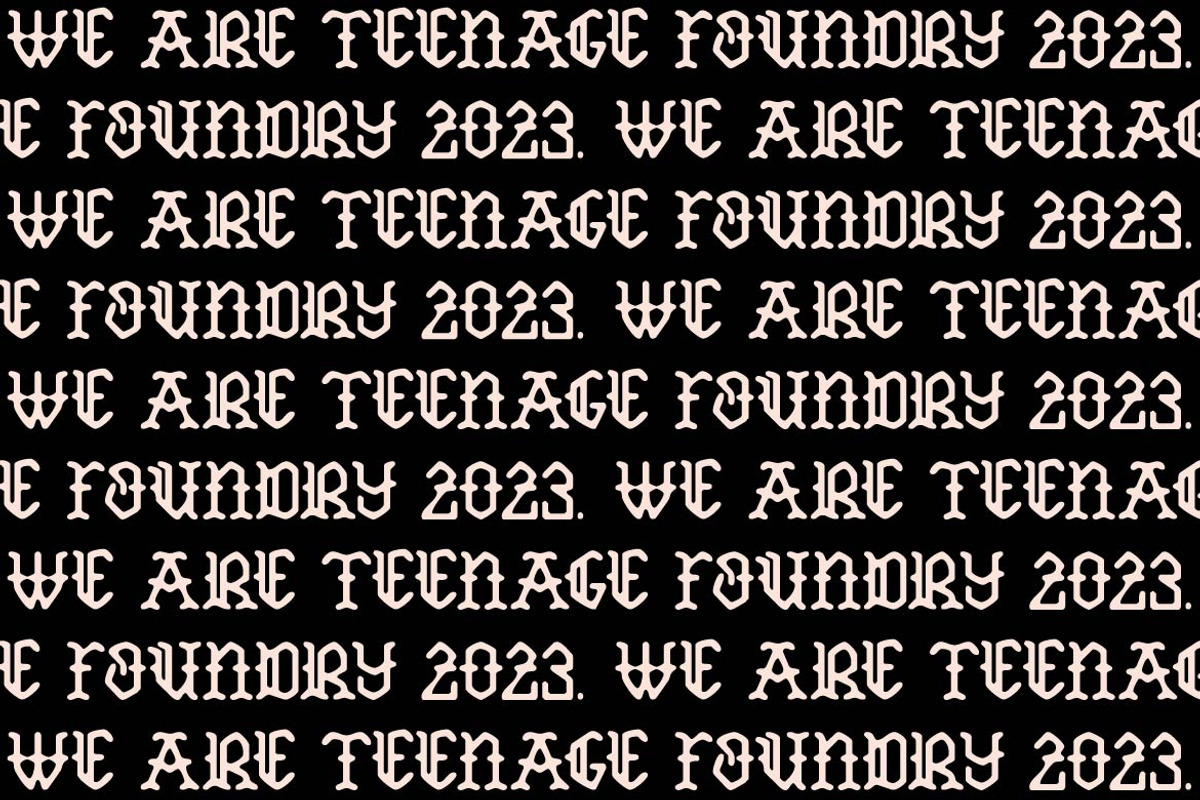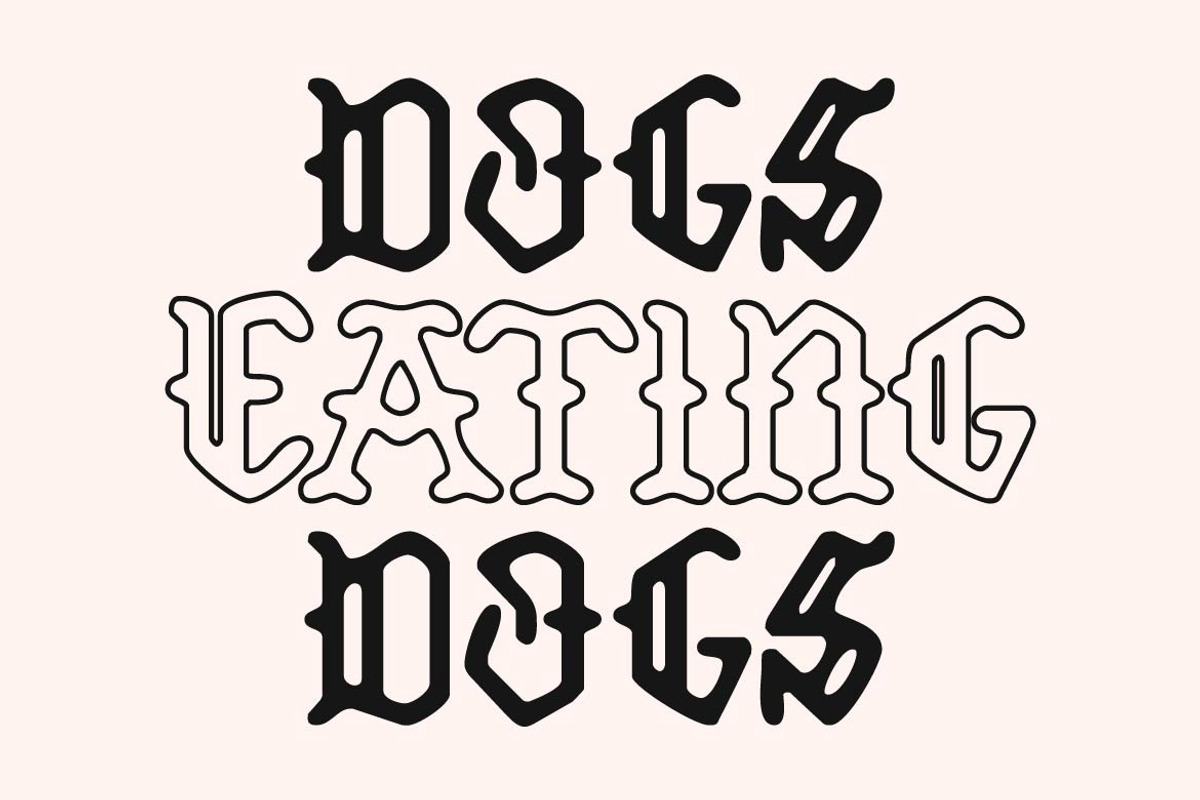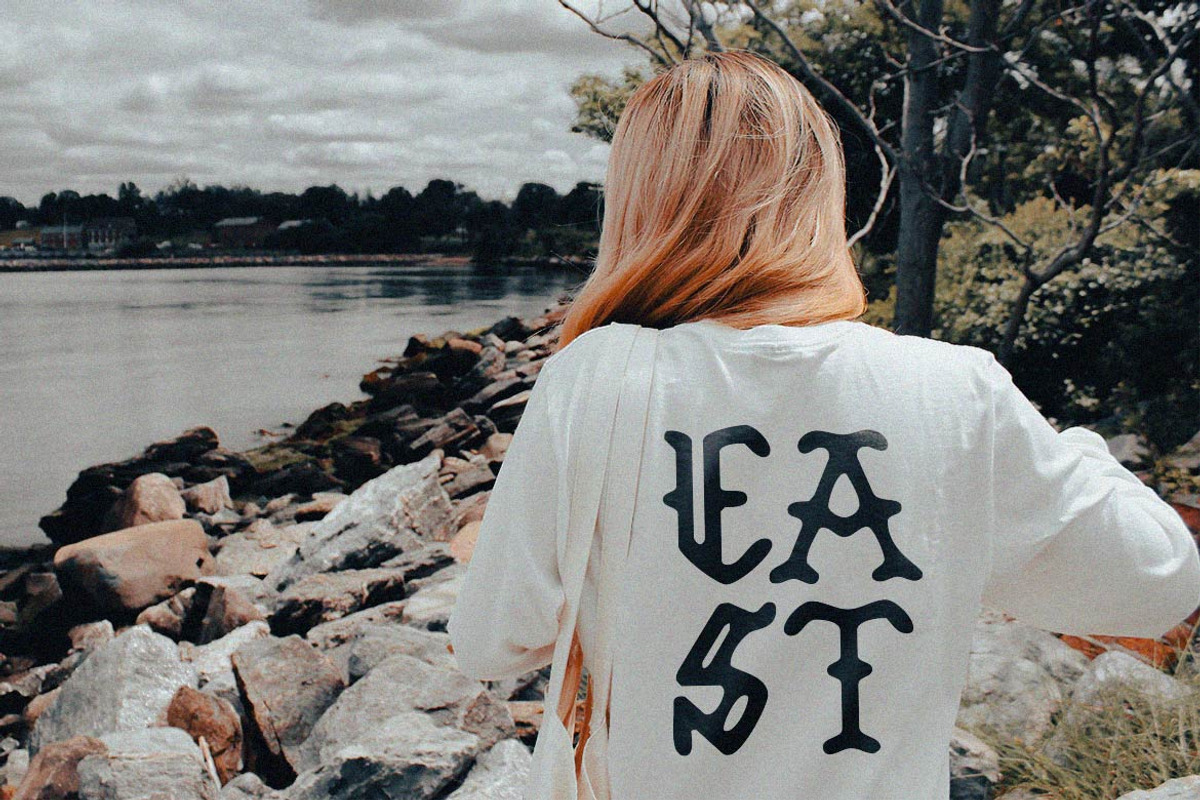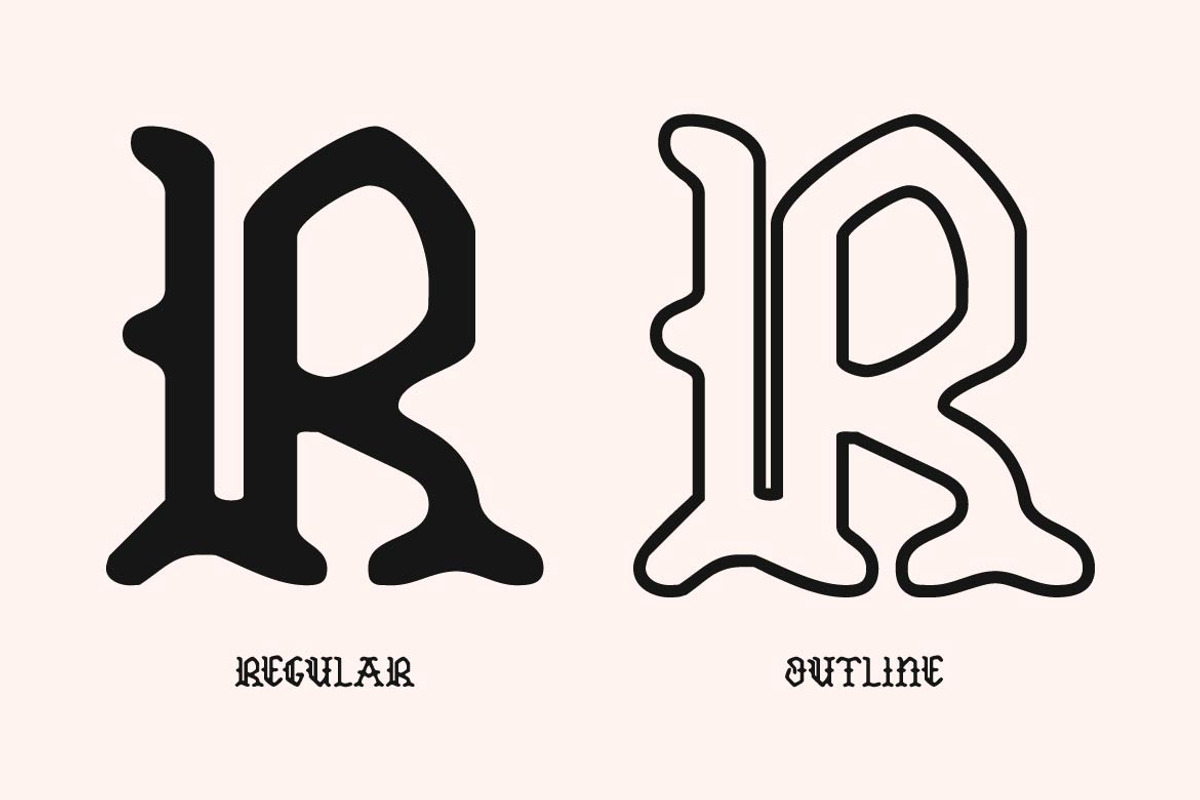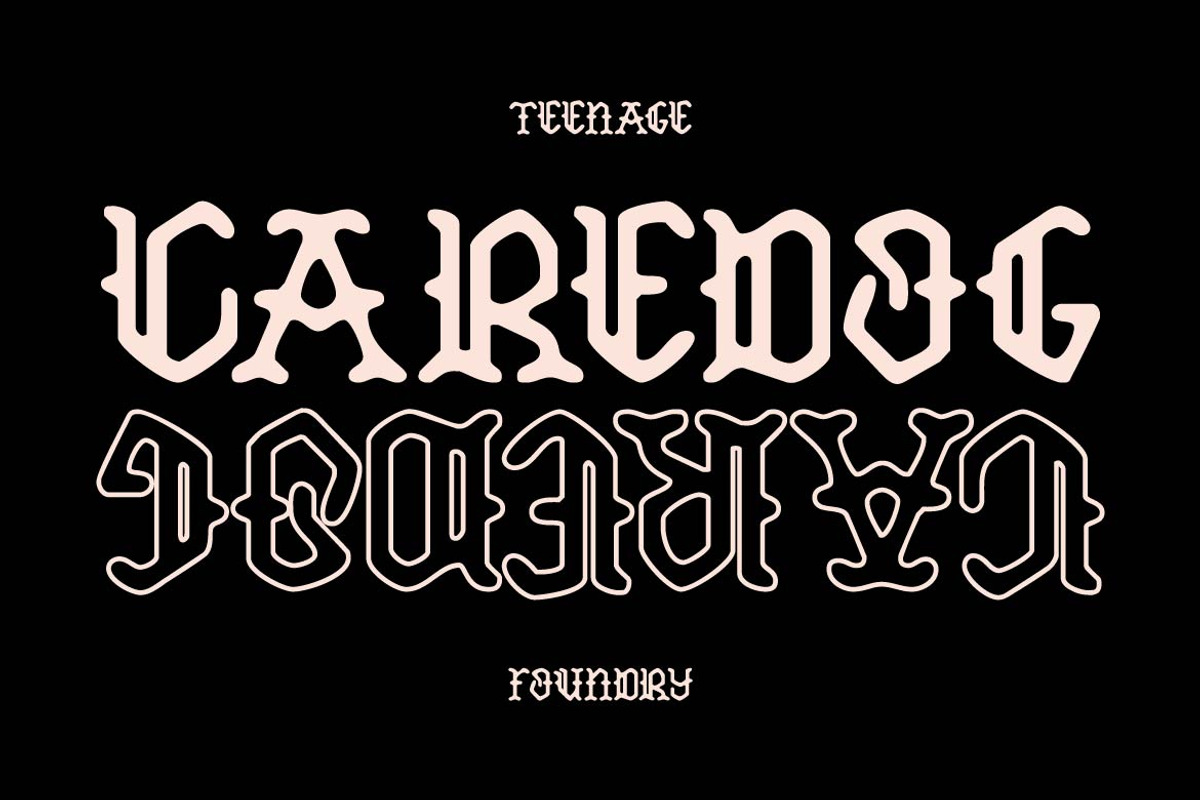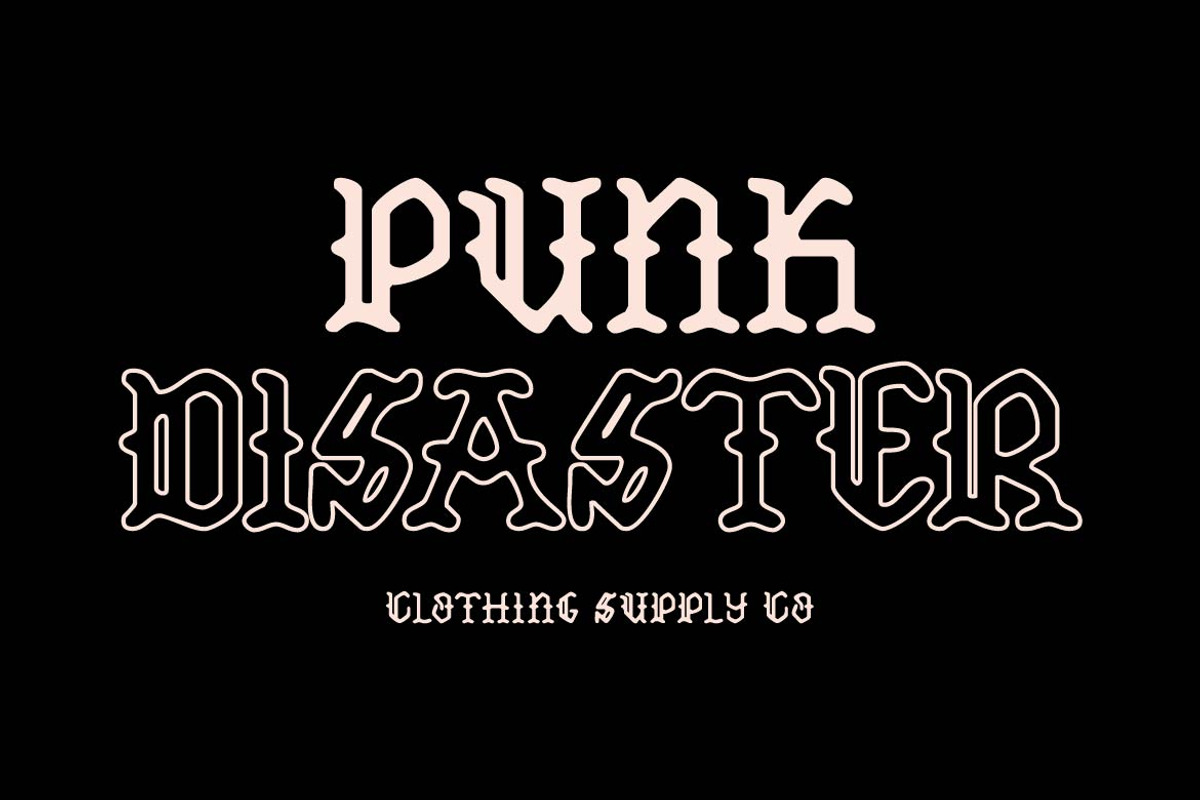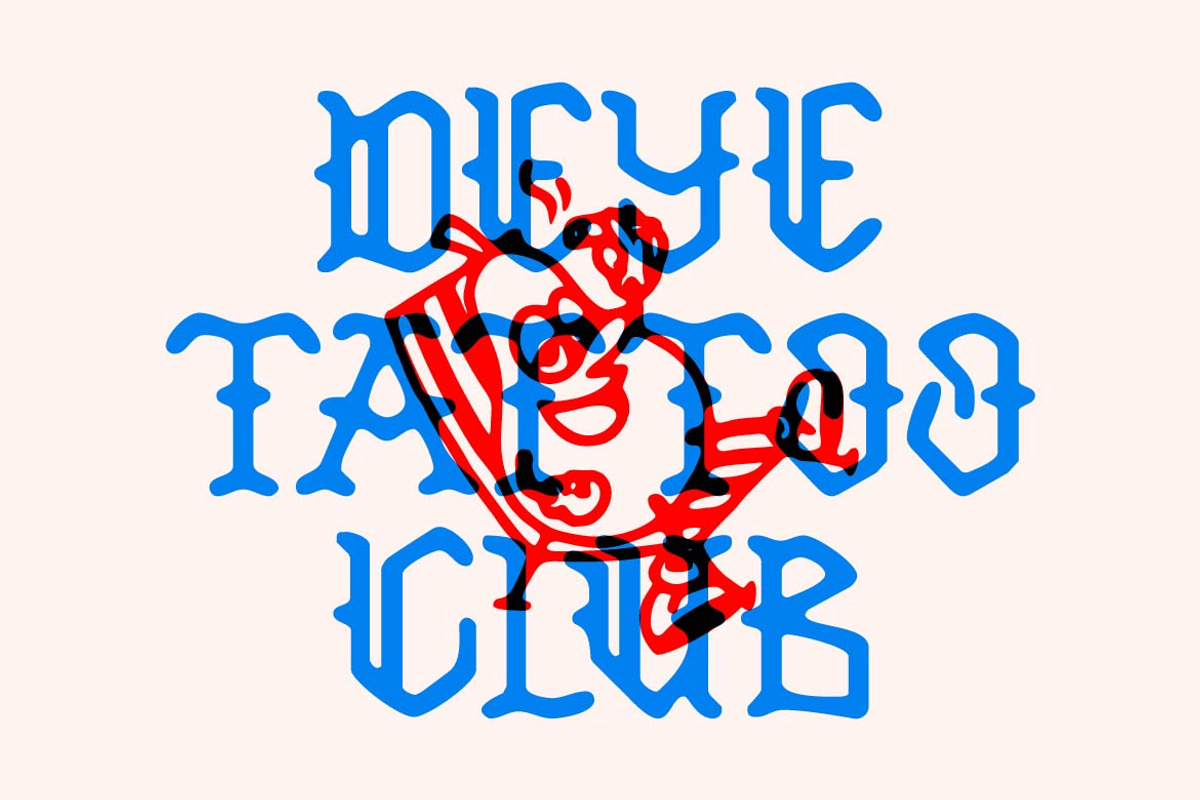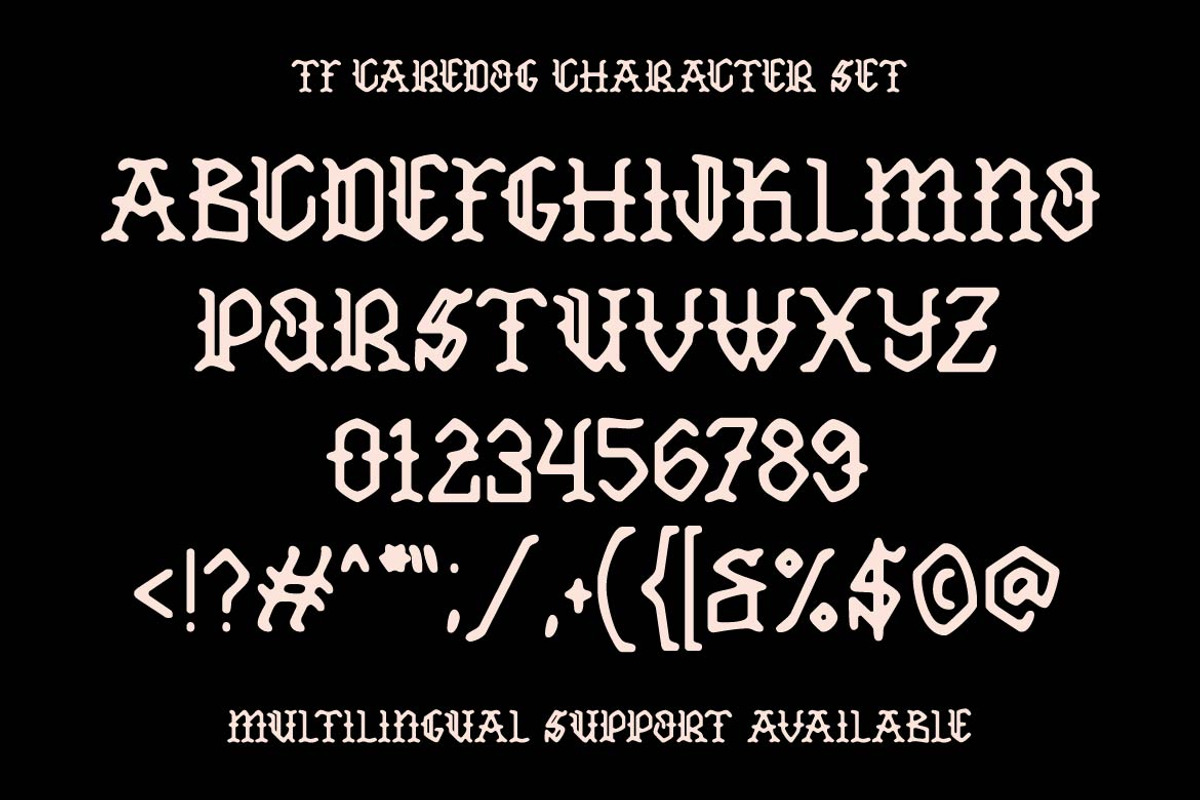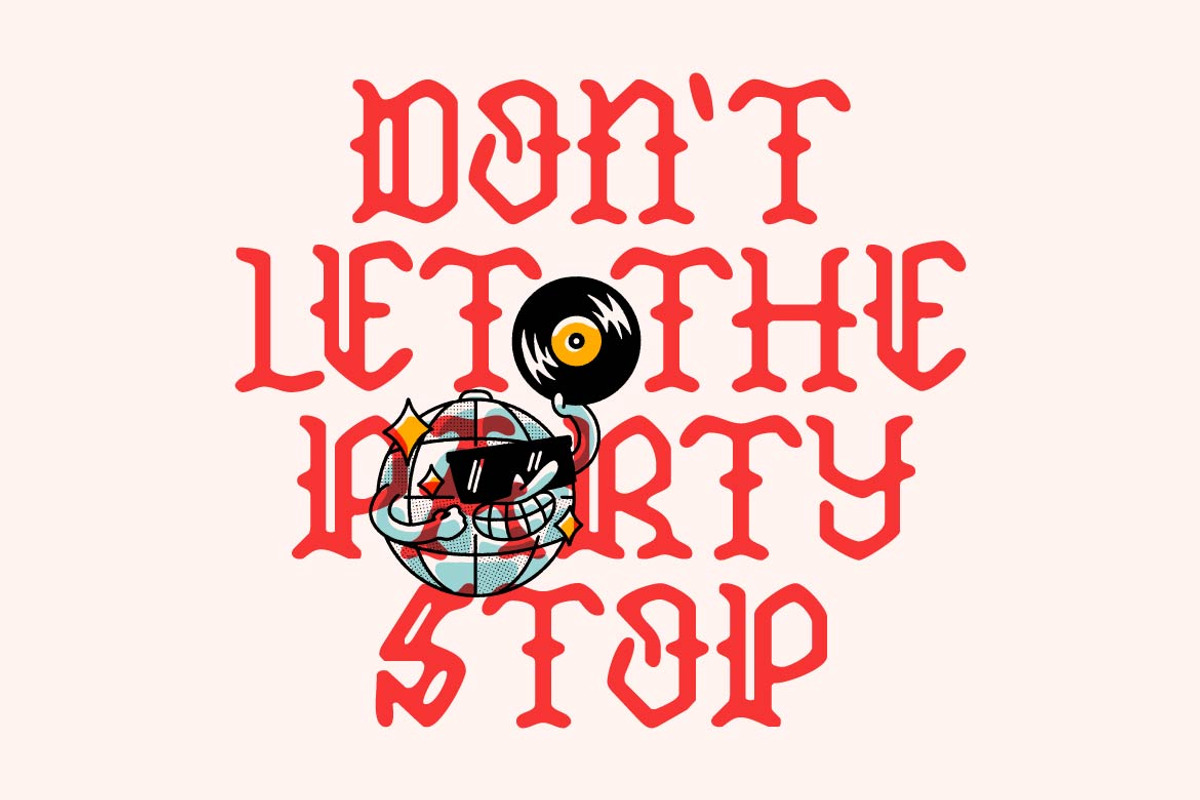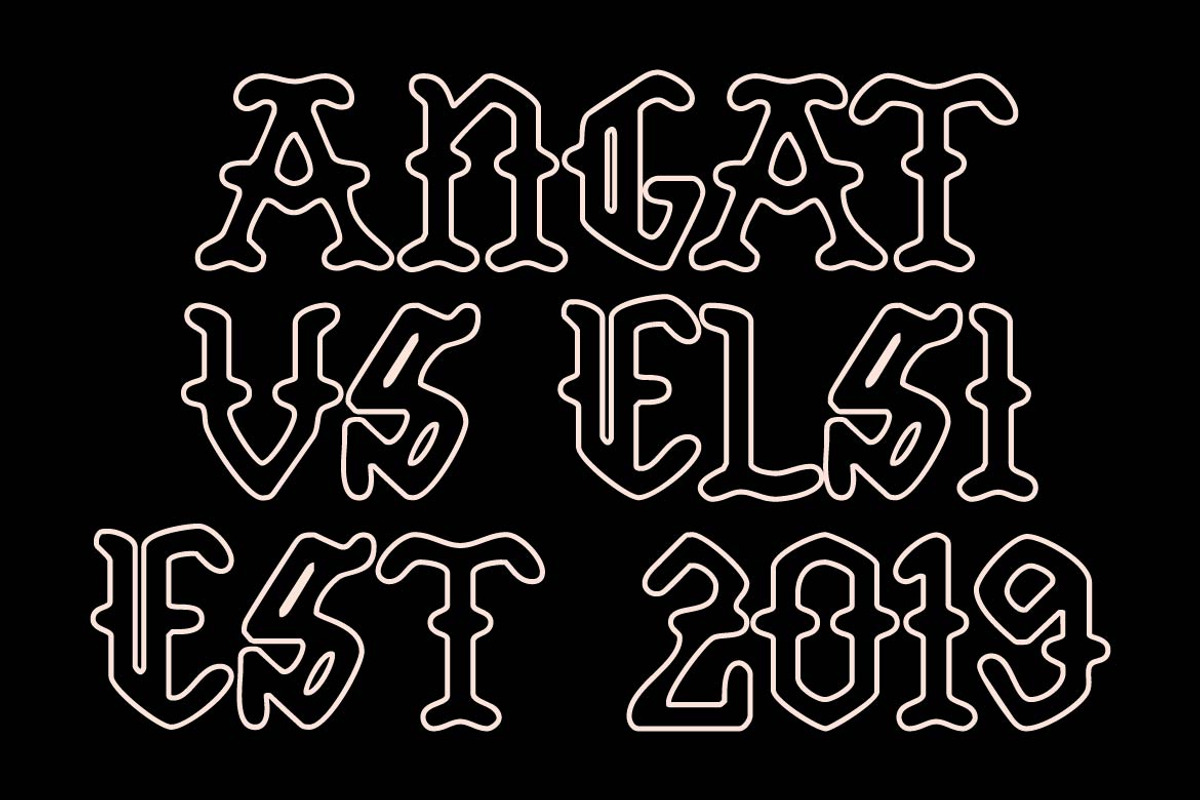
TF Caredog
Introducing our newest font creation!
TF Caredog – a blackletter font that’s powerful, and full of character! This font is perfect for anyone looking to make a statement with their designs and add a touch of fun to their projects.
Fonts come in two styles – regular and outline – giving you the flexibility to choose the look that best suits your needs.
Our blackletter fonts are designed with meticulous attention to detail, ensuring each letter is perfectly balanced and easy to read. The strong and bold character of the font will make your message impossible to ignore, while the fun and playful style will add an extra layer of creativity to your design.